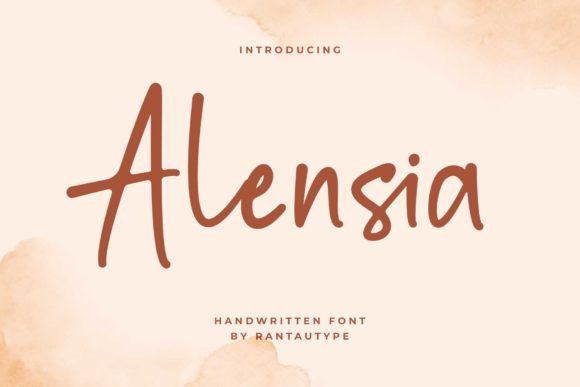
Introducing Alensia Font: Elevate Your Designs with a Touch of Elegance
Hi there, fellow designers and creative enthusiasts! I’m thrilled to share with you a fantastic handwritten font that has taken my design game to the next level: Alensia. In this article, we’ll dive into the world of Alensia, exploring its features, uses, and everything in between.
A Design Moment: The Quest for the Perfect Font
I recall working on a project where I struggled to find the perfect font. My client wanted a signature logo design that exuded elegance and sophistication. After hours of scouring font libraries, I stumbled upon Alensia. Its natural, handwritten charm instantly captivated me, and I knew I had found the one. ✨
An Honest Review of Alensia Font
What I Love About Alensia
- ✨ Modern and premium look: Alensia boasts a fresh, contemporary feel that’s perfect for designs that require a touch of sophistication.
- ✅ Readability and legibility: This font is incredibly easy to read, making it ideal for body text, quotes, and other design elements.
- 🎉 Catchy and stylish: Alensia’s unique character set and ligatures add a playful touch to any design.
While Alensia is an excellent font, there are a few minor limitations to consider:
- 🤔 Limited multilingual support: Although Alensia supports multiple languages, its coverage might not be exhaustive. Be sure to check the font’s capabilities before using it for a specific language.
- ⚠️ Occasional glyph issues: Some users have reported minor glyph issues when using Alensia in certain software or platforms. However, these issues are relatively rare and usually easy to resolve.
- Explore Alensia’s OpenType features, glyphs, and stylistic alternates to elevate your design.
One of the standout features of Alensia is its support for OpenType features and glyphs. These features allow you to:
- Access stylistic alternates and swashes.
- Use ligatures and functional ligatures.
- Explore multilingual support.
The Backstory of Alensia Font
Alensia was crafted with love and care by a talented font designer. Although the designer’s story is shrouded in mystery, it’s clear that Alensia was created to bring a touch of elegance and sophistication to the world of typography.